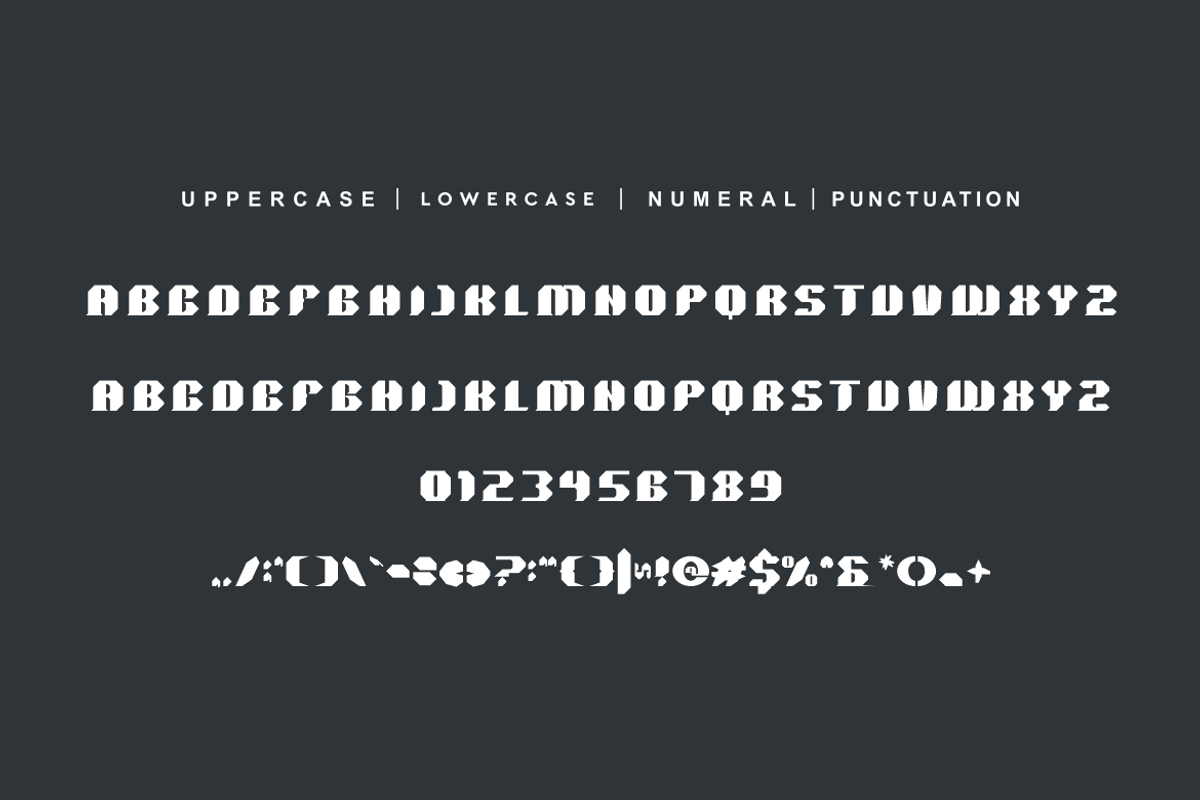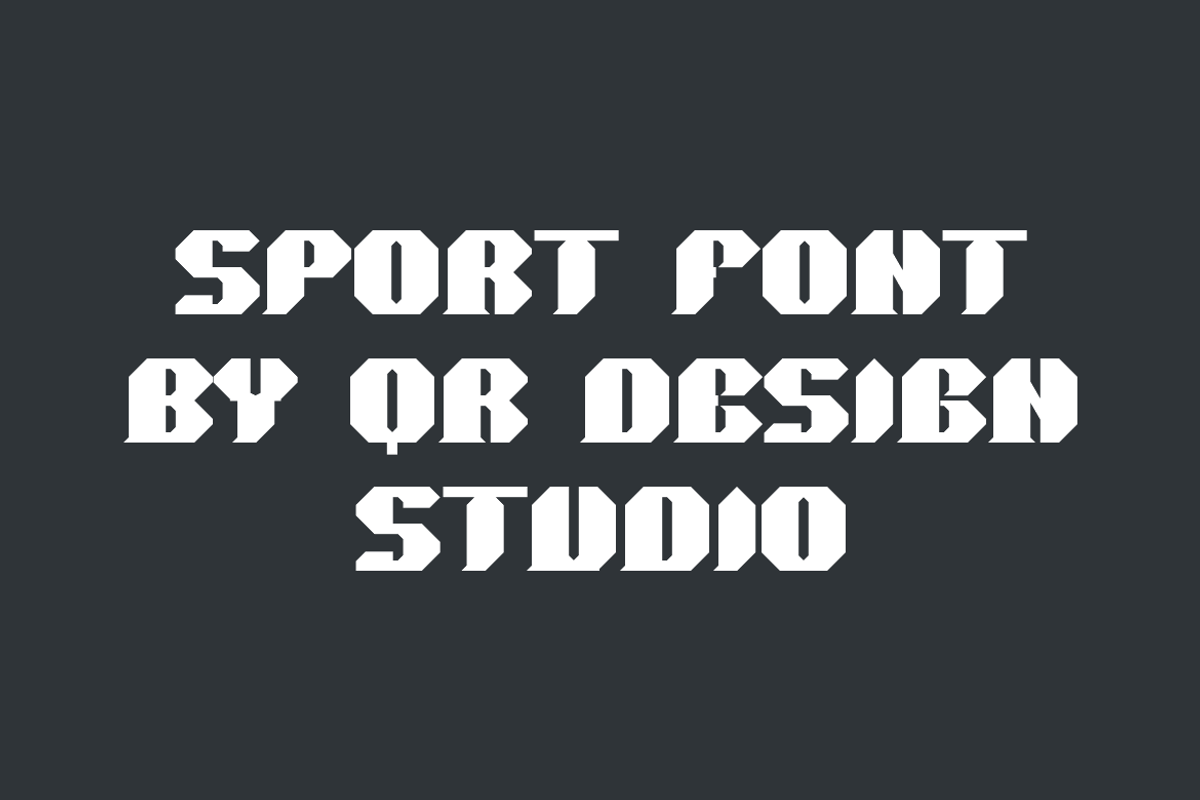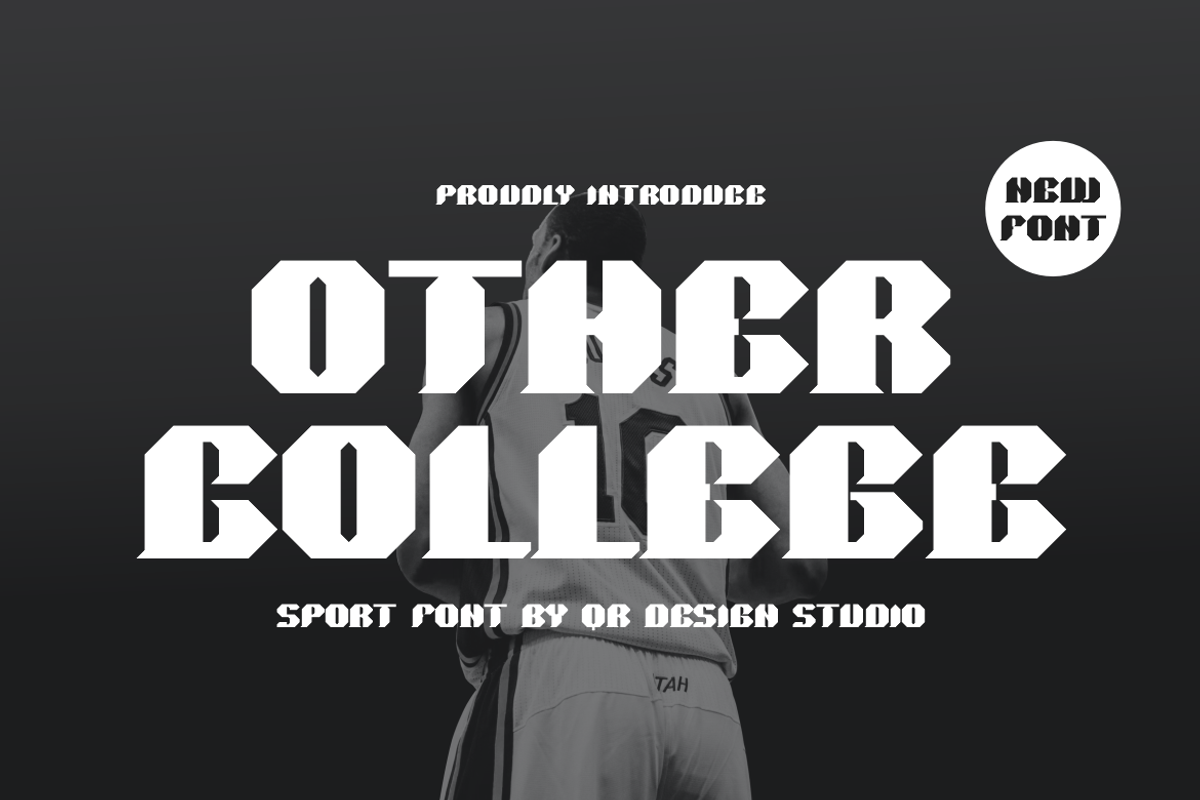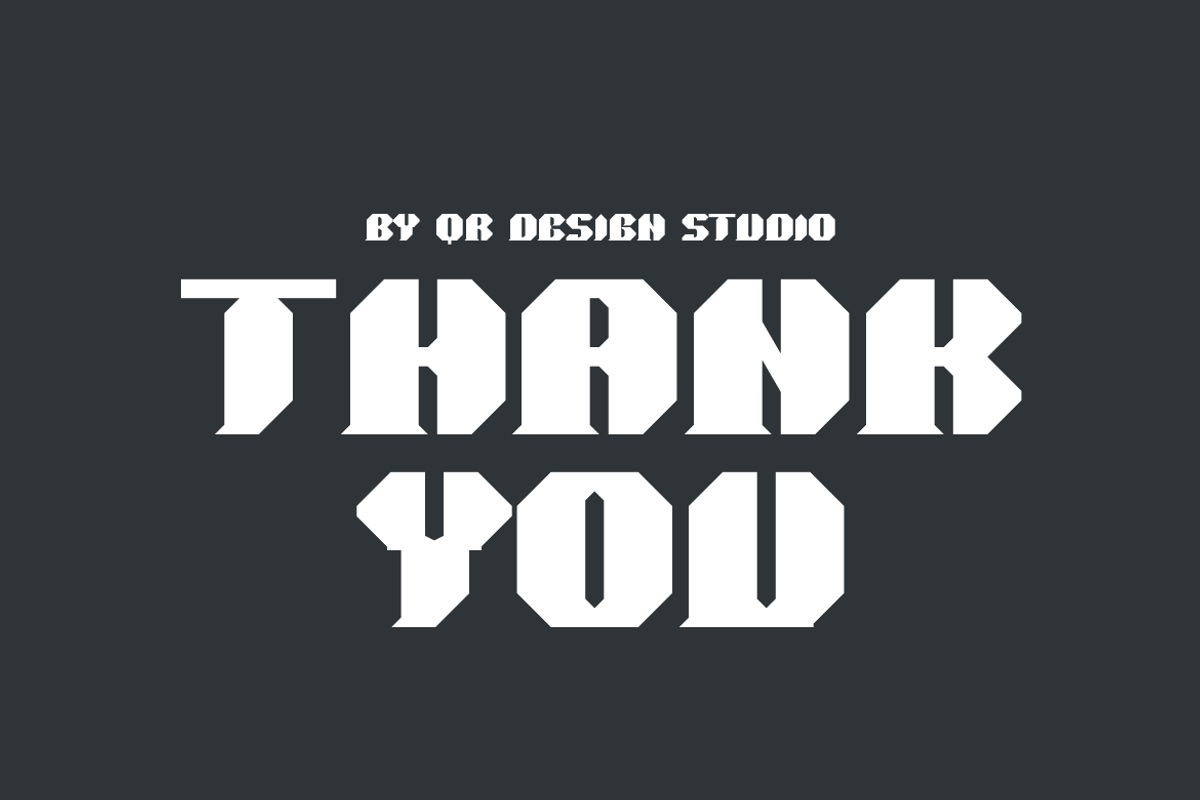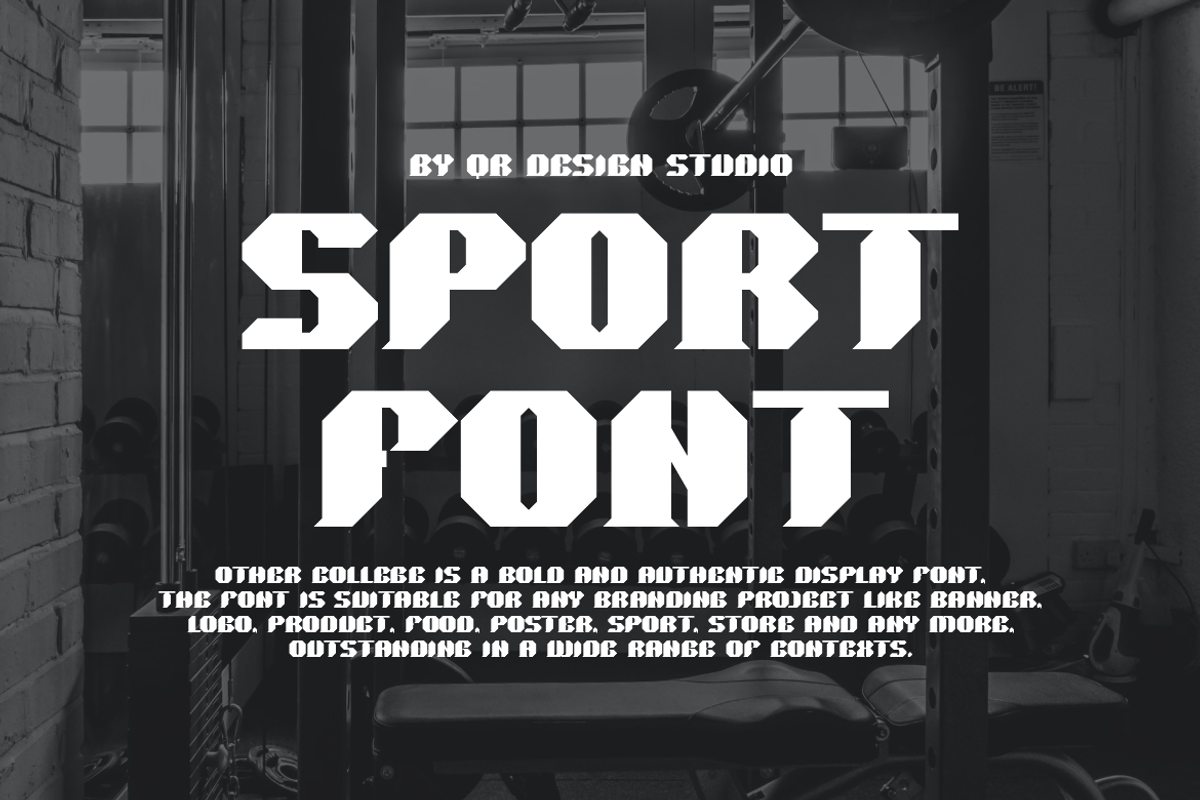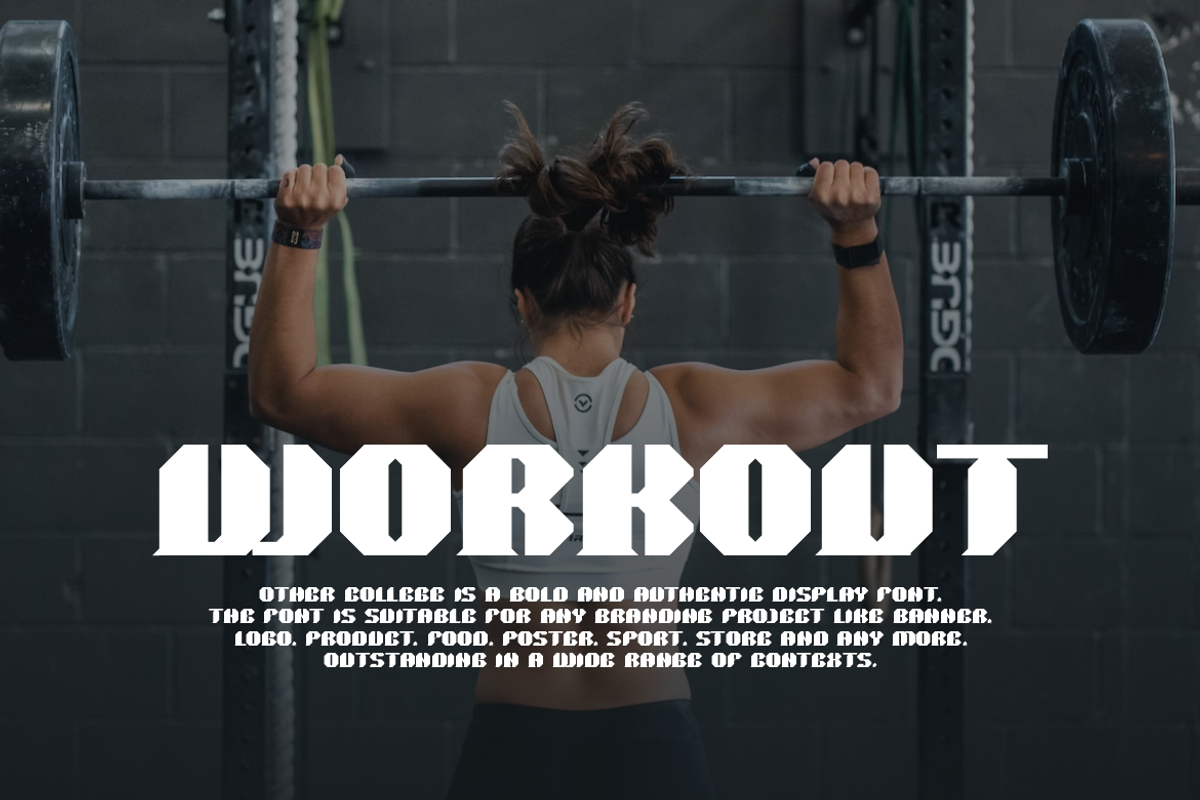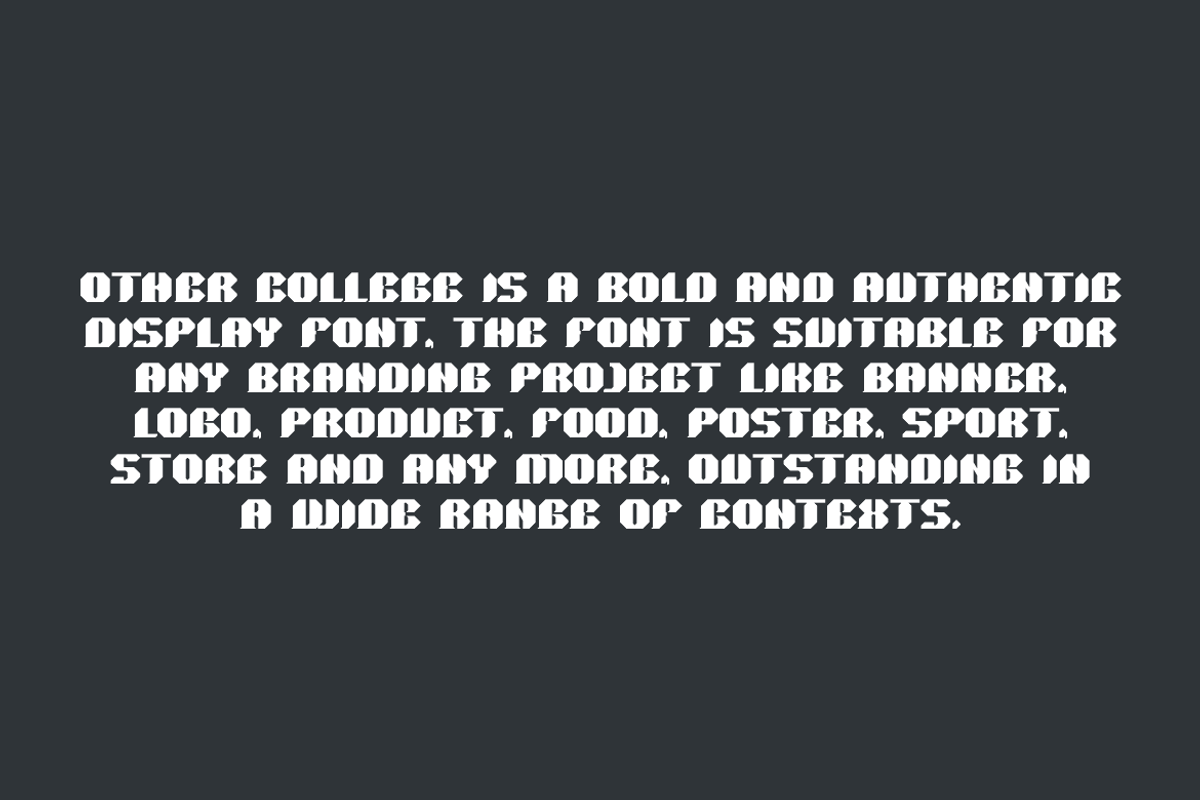
Other College Font
Other College Font is a bold and authentic display font. The font is suitable for any branding project like poster, logo, sport, and many more. Outstanding in a wide range of contexts.